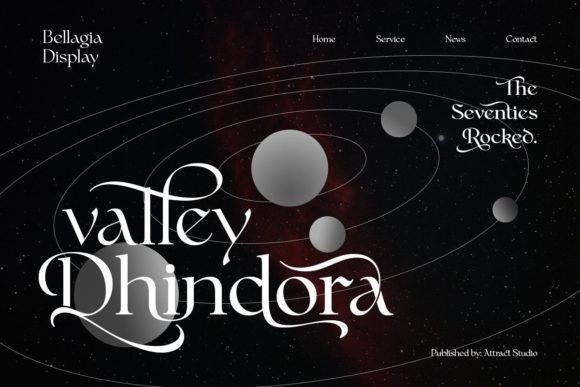
Bellagia Display Font: Elevate Your Projects with Elegance
In the world of typography, the right font can make all the difference in elevating your project from ordinary to extraordinary. If you’re looking for a font that exudes elegance, sophistication, and a touch of vintage charm, look no further than Bellagia Display Font. This stunning font is a masterful blend of two calligraphy typefaces and vintage serifs, carefully crafted to create a natural bond that will leave you and your audience in awe.
The Unique Characteristics of Bellagia Display Font
Bellagia Display Font is not just another font; it’s an experience. With its roots in calligraphy and vintage serifs, this font boasts a unique character that sets it apart from others in its class. The blend of two calligraphy typefaces brings a sense of fluidity and movement, while the vintage serifs add a touch of sophistication and elegance. The result is a font that is both visually striking and highly legible, making it perfect for a wide range of applications.
The Power of PUA Encoding
One of the standout features of Bellagia Display Font is its PUA (Private Use Area) encoding. This means that you can access all of the amazing glyphs and ligatures with ease, giving you unparalleled creative control over your typography. With PUA encoding, you can effortlessly navigate the font’s extensive character set, selecting the perfect glyphs to bring your vision to life.
Endless Creative Possibilities
Bellagia Display Font offers endless creative possibilities, making it the perfect choice for a wide range of projects. Whether you’re working on a luxury brand logo, a high-end product packaging design, or a stylish website, this font has the versatility to adapt to any creative vision. The font’s elegant lines, beautiful ligatures, and extensive character set make it an ideal choice for:
- Logos and branding
- Headings and titles
- Packaging design
- Web design
- Advertising and marketing materials
- Stationery and business cards
Why Choose Bellagia Display Font?
With so many fonts available, why choose Bellagia Display Font? Here are just a few reasons why this font stands out from the crowd:
- Unique character: Bellagia Display Font boasts a distinctive character that sets it apart from other fonts.
- Elegance and sophistication: This font exudes elegance and sophistication, making it perfect for high-end projects.
- PUA encoding: With PUA encoding, you can access all of the font’s amazing glyphs and ligatures with ease.
- Versatility: Bellagia Display Font is suitable for a wide range of projects, from logos and branding to web design and advertising.
- High-quality design: This font is designed to the highest standards, ensuring a flawless performance in any application.
Tips for Using Bellagia Display Font
To get the most out of Bellagia Display Font, here are a few tips to keep in mind:
- Use it sparingly: Due to its elegant and sophisticated nature, Bellagia Display Font is best used sparingly to make a lasting impact.
- Pair it with a sans-serif font: For optimal readability, pair Bellagia Display Font with a clean sans-serif font for body text.
- Experiment with glyphs and ligatures: Take advantage of the font’s PUA encoding to experiment with different glyphs and ligatures, adding a touch of personality to your typography.
- Adjust font size and color: Don’t be afraid to adjust the font size and color to suit your design needs, ensuring the font performs optimally in any application.
In conclusion, Bellagia Display Font is a game-changer for anyone looking to elevate their projects with elegance and sophistication. With its unique character, PUA encoding, and versatility, this font is sure to impress. Whether you’re a designer, entrepreneur, or simply someone who appreciates beautiful typography, Bellagia Display Font is an excellent choice for any project. So why wait? Fall in love with Bellagia Display Font and bring your projects to the highest levels!